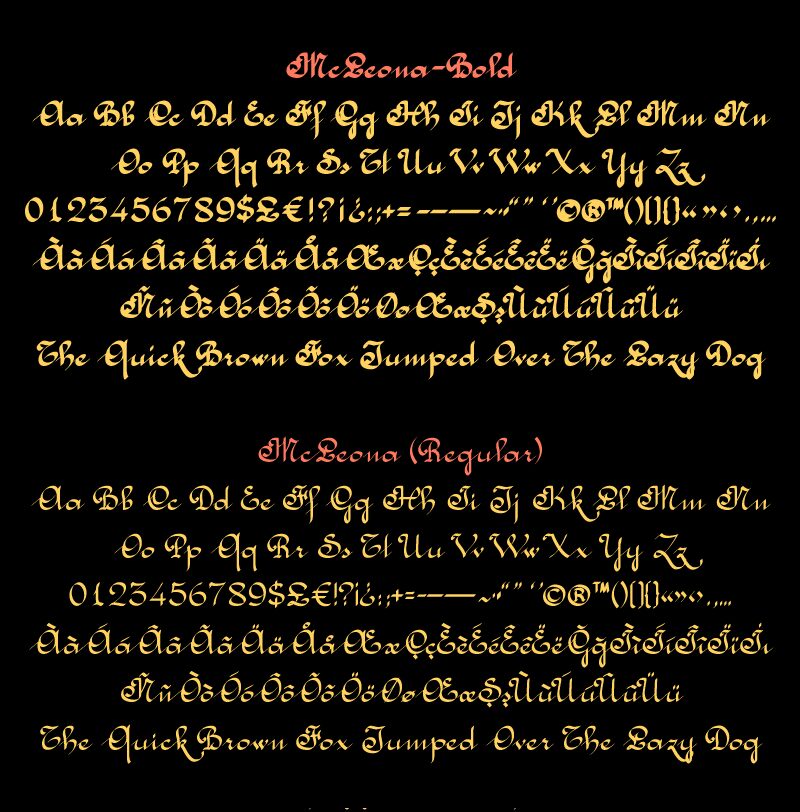
McLeona is a captivating calligraphic font that evokes a sense of vintage elegance.
Designed by Murat Yegul, this typeface boasts intricate flourishes and flowing lines that lend a timeless, artisanal quality to any text. Its ornate aesthetic makes it particularly well-suited for luxury branding, wedding invitations, and high-end editorial design.
The delicate balance between legibility and artistic flair ensures McLeona's versatility, allowing it to shine in both formal and informal settings. Its distinctive character and unique personality make it a standout choice for those seeking to elevate their visual identity.